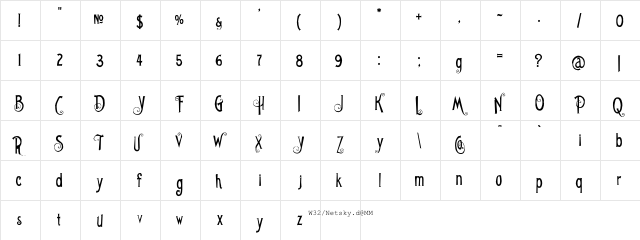
LHF Billhead 1910 Regular
| Foundry | Tom Kennedy for Letterhead Fonts |
| Designer | Tom Kennedy |
Design Context for LHF Billhead 1910 Typeface
LHF Billhead 1910 is a composed and adaptable typeface that performs quietly and consistently across a wide range of design contexts.